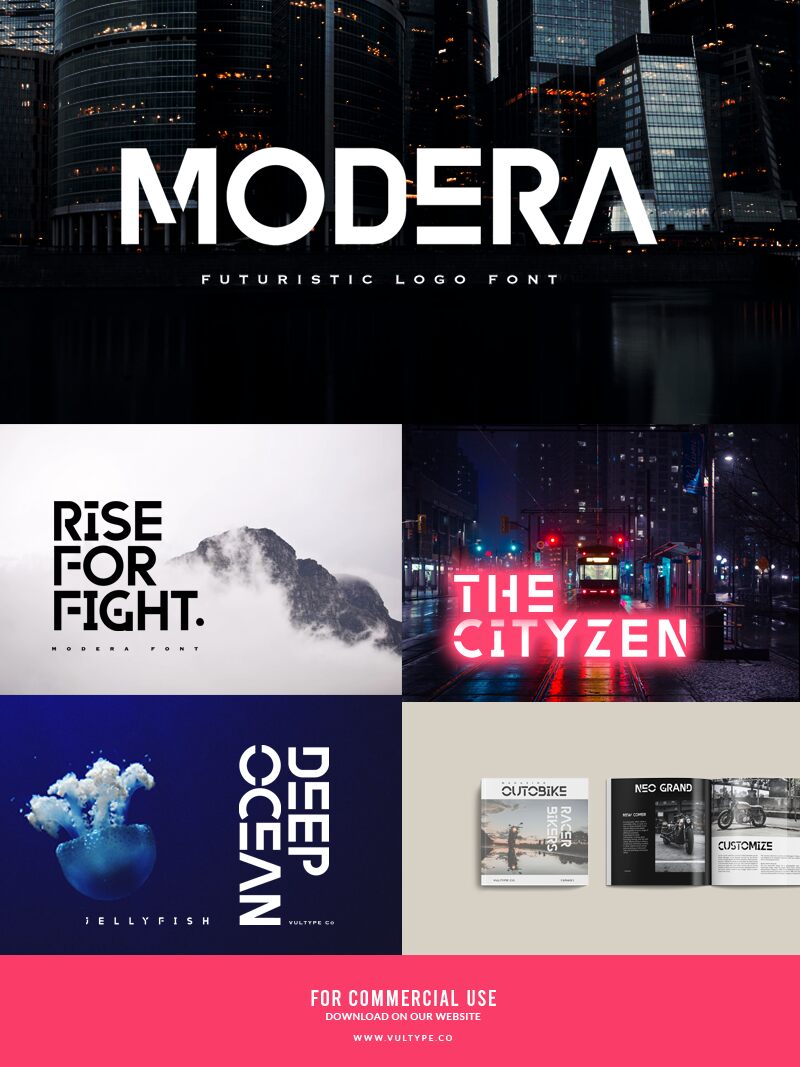
MODERA
Modera, a futuristic display font crafted by Vultype, emanates a sleek, sophisticated allure. Its clean, geometric letterforms and bold, angular flourishes evoke a sense of technological advancement and bold modernity. The font's distinctive character shapes and seamless kerning create a visually striking, yet highly legible aesthetic, making it a captivating choice for attention-grabbing headlines, impactful branding, and immersive digital experiences.
Modera's versatility shines through its ability to command attention in a variety of design contexts. Its futuristic flair lends itself well to product packaging, promotional materials, and user interfaces, where it can effectively convey a sense of innovation and cutting-edge design. Additionally, the font's bold presence makes it a compelling option for editorial layouts, event branding, and eye-catching signage, ensuring that the message is delivered with maximum impact.